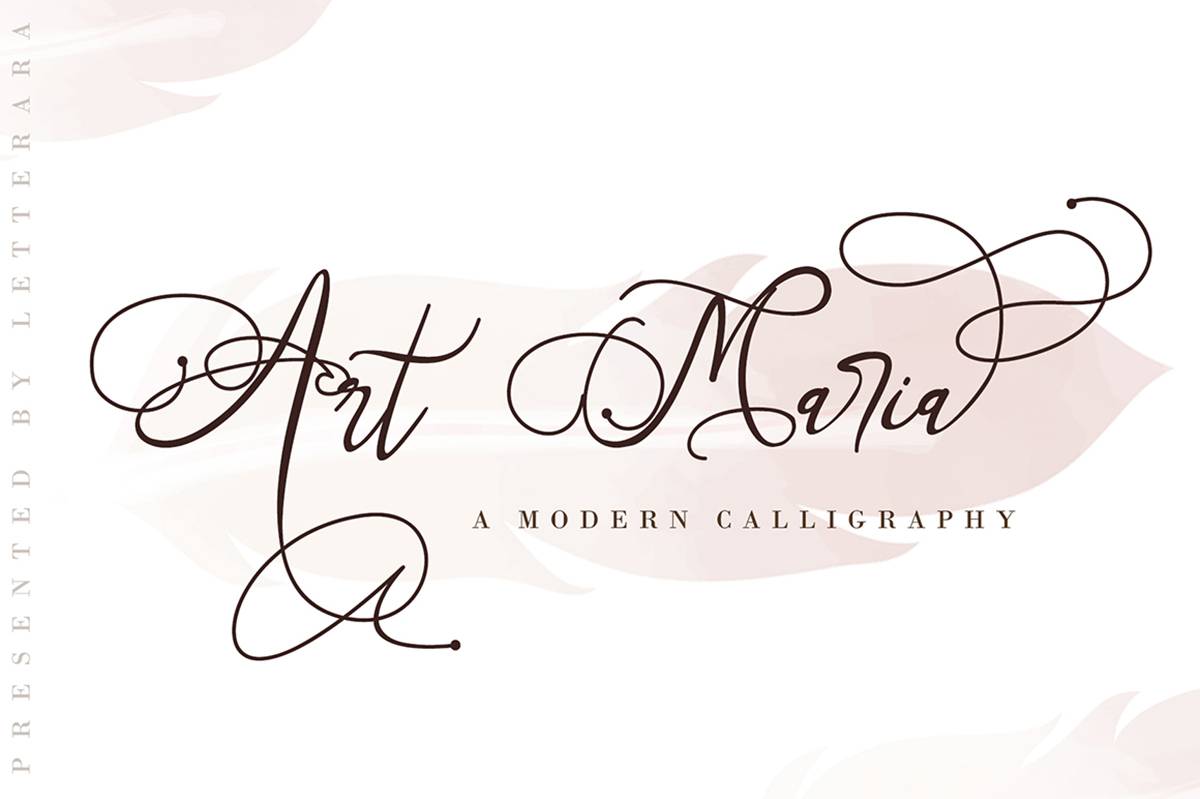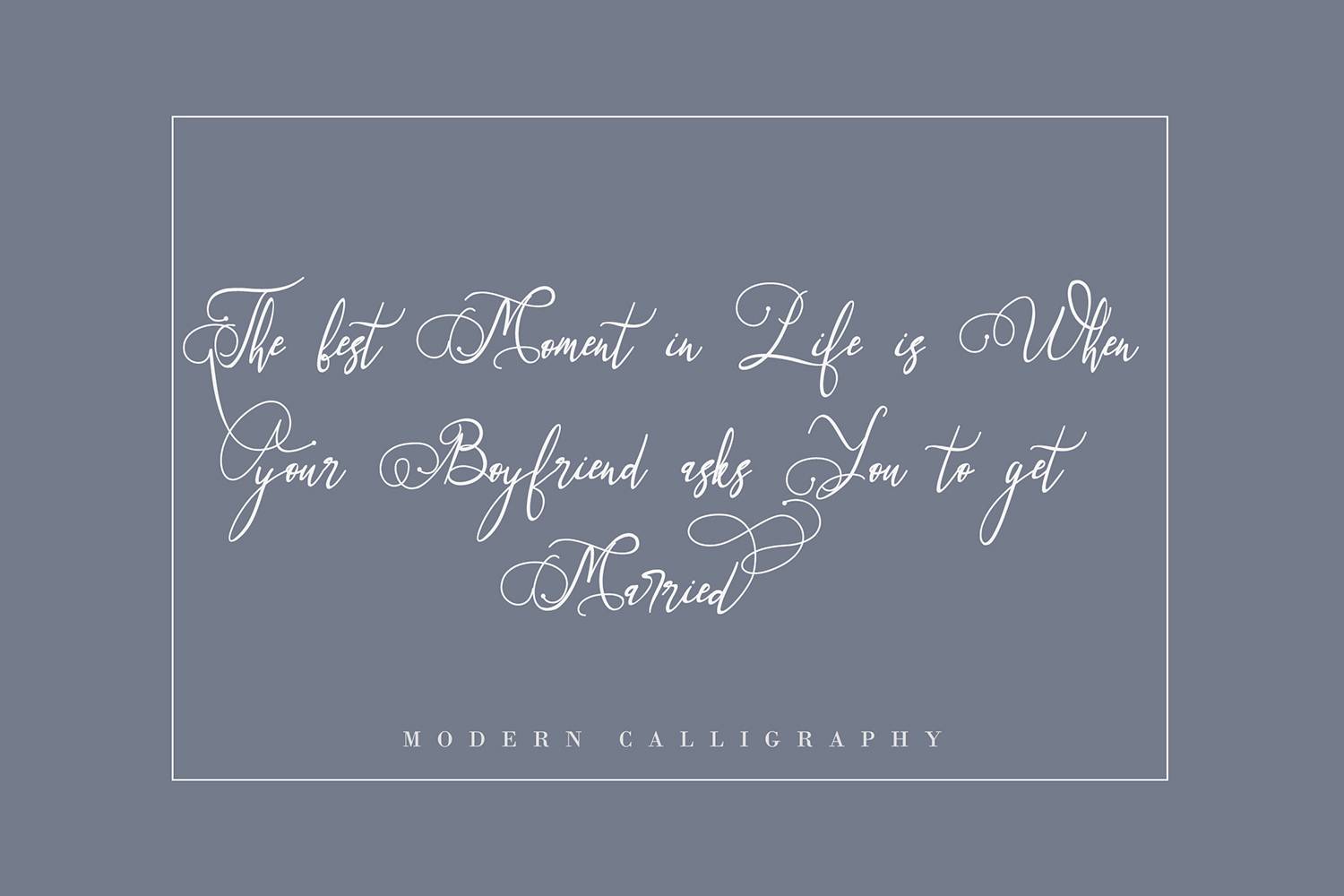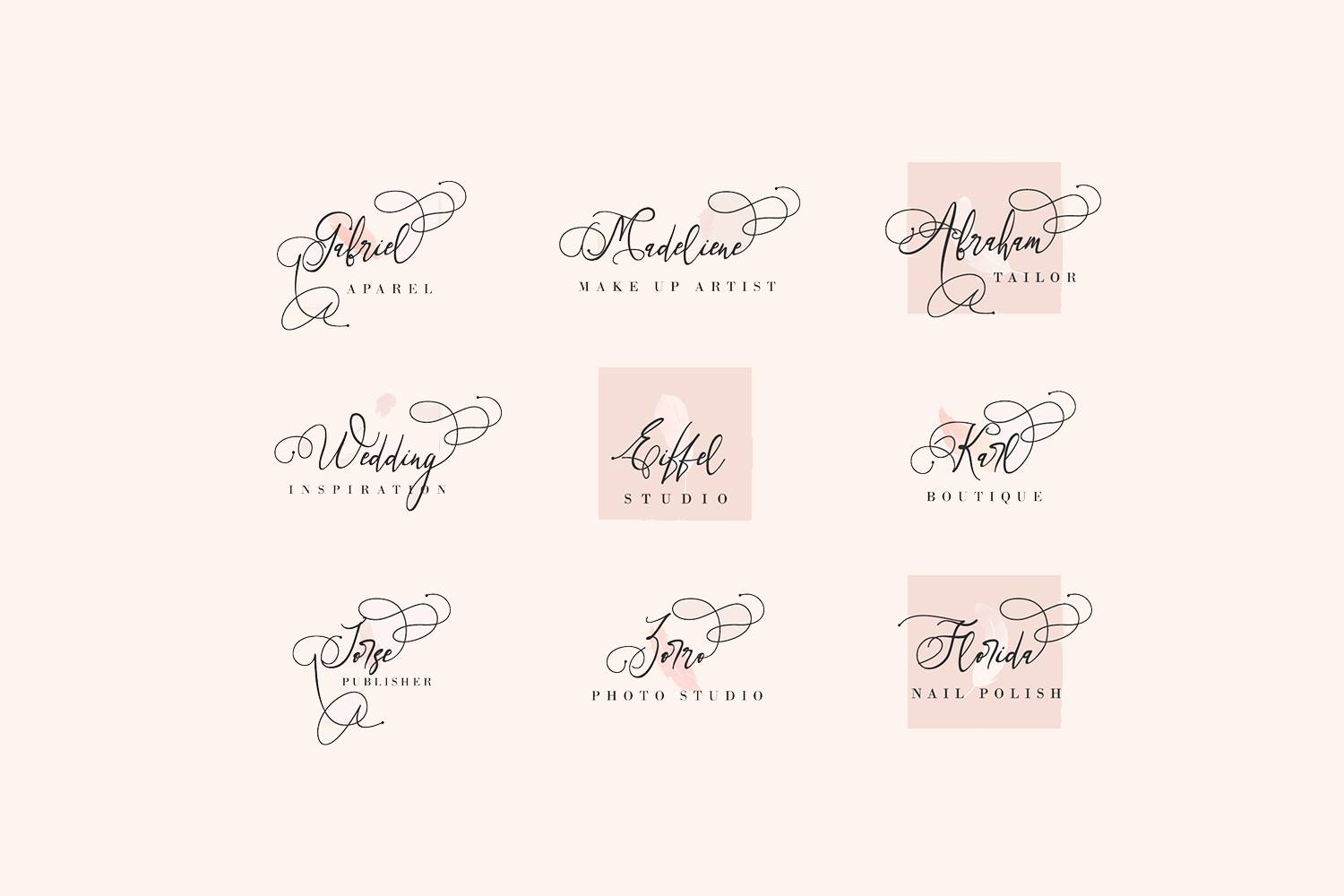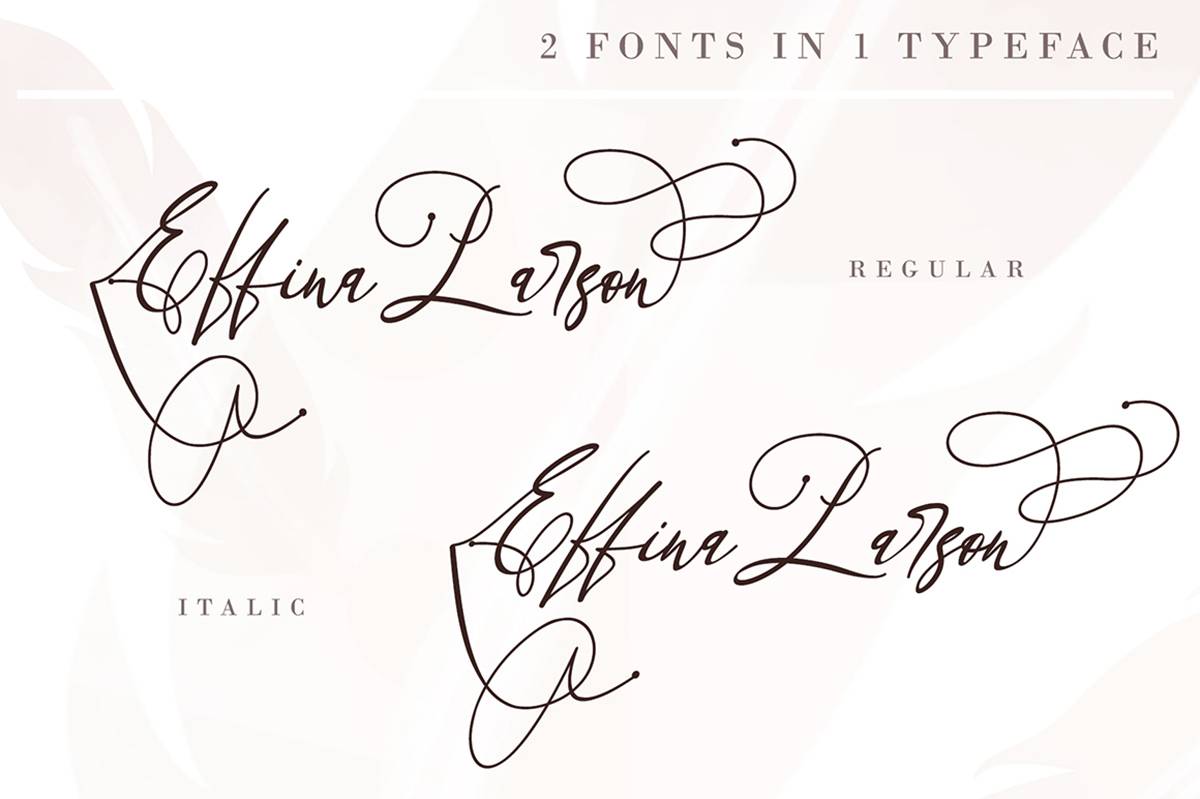
Art Maria is an elegant, highly decorative script font with delicate, flowing strokes and intricate swashes that convey a sophisticated, romantic charm. Its fine lines and elaborate uppercase letters make it ideal for luxury branding, wedding invitations, and artistic design projects where a graceful and stylish touch is desired. This font works best in display uses where its ornate beauty can truly stand out and add a refined personality.
Art Maria Font
About Art Maria Font
| Font family | Art Maria Font |
| Designer | Letterara 2019 |